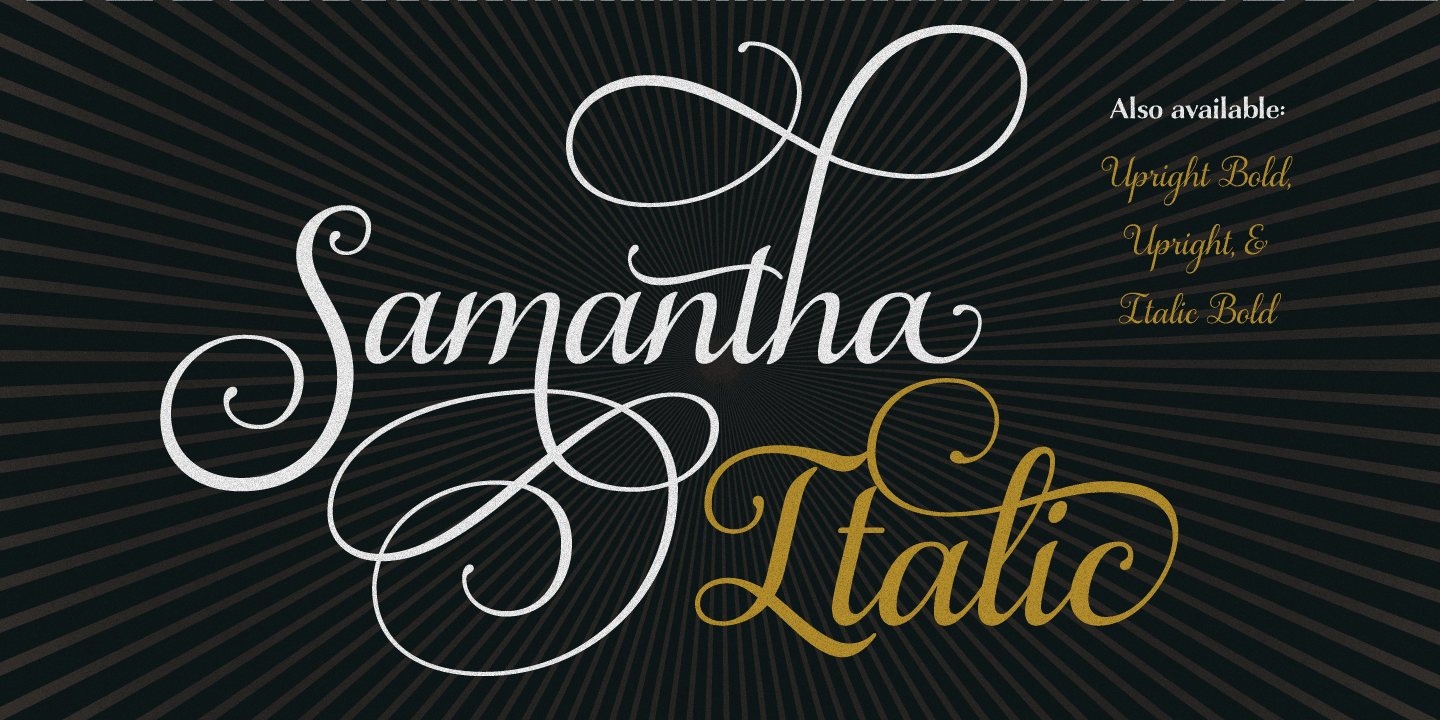
Samantha Script Font
Samantha Script Italic PRO Font by Laura Worthington Font Bros
Samantha Script font sample Silhouette fonts, Samantha font, Fancy fonts
Samantha Script Italic PRO Fonts
Samantha is a delicate and unique handwritten font with a lovely charm
Web Explore Samantha Designed By Laura Worthington At Adobe Fonts.